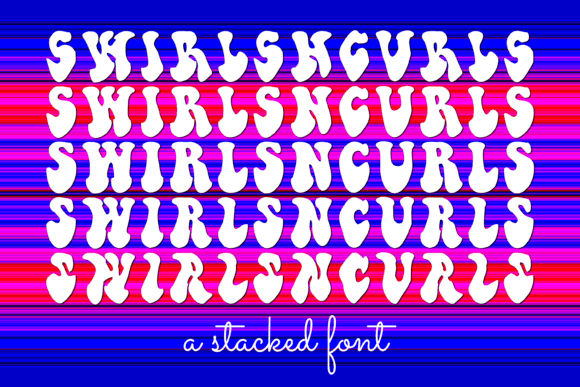
In a world where creativity knows no bounds, introducing Swirls N Curls Font, the enchanting display font that will add a touch of magic to your visual creations. Designed with precision and flair by the talented WADLEN, this font is a visual masterpiece that invites you to explore the realm of imagination.
With its captivating curves and playful swirls, Swirls N Curls Font is the perfect choice for those seeking a font that exudes charm and elegance. Whether you're a seasoned designer or a creative enthusiast, this font will elevate your projects to new heights, leaving a lasting impression on your audience.
Immerse yourself in the world of Swirls N Curls Font and discover a font that is not just a collection of letters and symbols, but an artistic expression that breathes life into your designs. Ideal for custom designs, DIY crafts, and any project that calls for a touch of loveliness, this font is a versatile tool that will transform your creative visions into tangible works of art.
Step into the realm of Swirls N Curls Font and embark on a journey of creativity where the possibilities are endless. With its enchanting swirls and captivating curves, this font will ignite your imagination and inspire you to create designs that are both visually stunning and deeply meaningful.